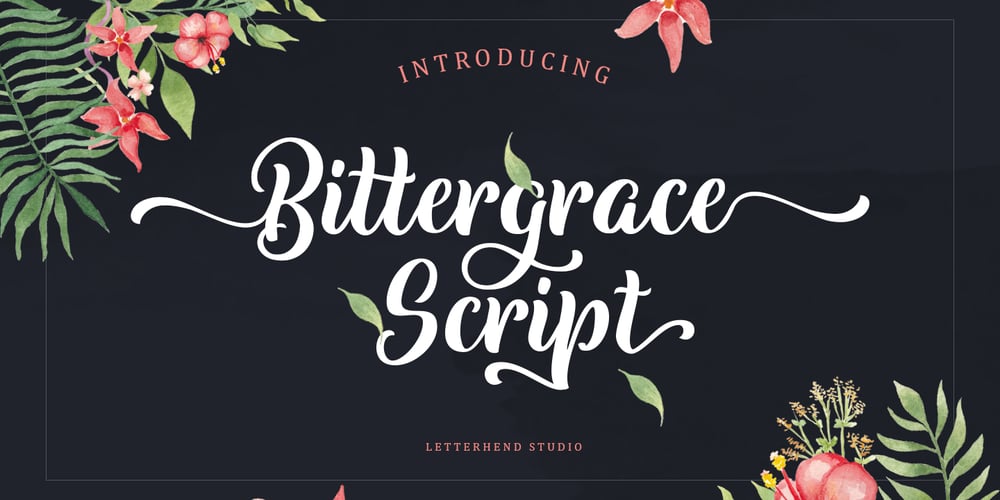
Bittergrace Script Font Family was designed by Hendry Juanda, Sarid Ezra and published by Letterhend. Bittergrace Script contains 1 styles and family package options. Introducing Bittergrace, a romantic modern script with a twist of fun! The natural hand writing script is suitable for you who needs a typeface for headline, logotype, apparel, invitation, branding, packaging, advertising and others. This typeface comes with uppercase, lowercase, punctuations, symbols and numerals, stylistic alternate set, ligatures, and mor and also has multilingual support. It also already PUA Encoded. We hope you enjoy the font, please feel free to comment if you have any thoughts or feedback. Or simply send me a PM or email at letterhend@gmail.com Thanks for purchasing and have fun!